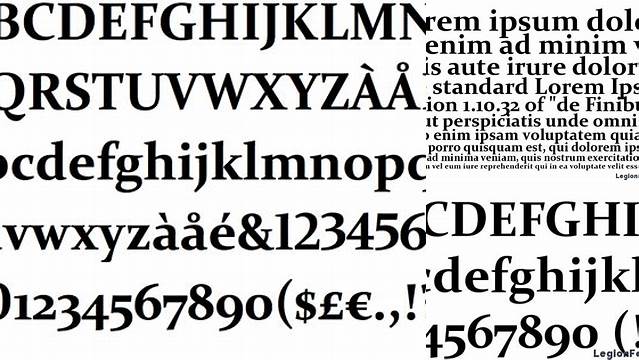
Understanding the Allure of Constantia Bold
Before we jump into the nitty-gritty of downloading and installing, let's take a moment to appreciate what makes Constantia Bold such a sought-after font. This typeface, part of the larger Constantia family designed by John Hudson and released by Microsoft, boasts a classic yet contemporary appeal. Its elegant serifs and bold weight give it a commanding presence, making it ideal for headlines, titles, and branding materials. The legibility of Constantia Bold is also a major plus, ensuring your message is clear and impactful across various media, from print to digital. Whether you're working on a sleek website design, a professional presentation, or a captivating marketing campaign, Constantia Bold can add that touch of sophistication and authority you're looking for. Plus, its versatility means it pairs well with a wide range of other fonts, giving you plenty of creative freedom to experiment and find the perfect typographic harmony for your project. And let's be real, a good font can make or break a design, so choosing wisely is crucial. That’s why Constantia Bold is a favorite among designers and creatives – it's a reliable workhorse that delivers every time. In the following sections, we'll explore where you can find this gem for free and how to get it working seamlessly on your Mac.
Why Constantia Bold is a Designer's Best Friend
Designers, listen up! Constantia Bold isn’t just another font in the sea of typefaces; it’s a reliable companion that brings a touch of elegance and authority to any project. Its carefully crafted serifs and bold weight create a visual impact that grabs attention, making it a go-to choice for headlines and titles. But the magic of Constantia Bold doesn't stop there. Its exceptional legibility ensures that your message is crystal clear, whether it's on a large poster or a small screen. This is crucial because, let’s face it, a beautiful font is useless if people can't read it! Think about it: you could be designing the most stunning website, but if the typography is off, your message gets lost in the visual noise. Constantia Bold helps you avoid that pitfall. Furthermore, its versatility is a major win. It plays well with a variety of other fonts, allowing you to create unique typographic combinations that reflect your brand's personality. Imagine pairing Constantia Bold with a clean, sans-serif font for a modern, professional look, or using it alongside a script font for a touch of classic elegance. The possibilities are endless! And let's not forget about the professional edge it brings to your work. Whether you're designing a sleek brochure, a compelling presentation, or a striking logo, Constantia Bold adds a level of sophistication that elevates your design. It's a font that commands respect and trust, making it perfect for businesses and brands that want to project a confident and reliable image. In short, Constantia Bold is more than just a font; it’s a design asset that can help you communicate effectively and make a lasting impression. So, if you're looking for a typeface that combines beauty, legibility, and versatility, look no further. Constantia Bold is here to save the day!
Utilizing Constantia Bold in Your Design Projects
Okay, you've got Constantia Bold installed and ready to roll. Now, let's talk about how to actually use this fantastic font in your design projects! Constantia Bold is a versatile typeface, but like any design tool, it shines brightest when used thoughtfully.
Best Practices for Font Pairing and Usage
When it comes to font pairing, Constantia Bold plays well with others, but it's essential to strike the right balance. Because Constantia Bold has a strong, authoritative presence with its serifs and bold weight, it often pairs beautifully with cleaner, sans-serif fonts. Think of it like this: Constantia Bold can be the confident headline, while a sans-serif font provides the clear and readable body text. This creates a visual hierarchy that guides the reader's eye and makes your design more engaging. For example, pairing Constantia Bold with a font like Open Sans or Lato can create a modern and professional look. The contrast between the serif and sans-serif styles adds visual interest, while the clean lines of the sans-serif font ensure readability. Alternatively, you could pair Constantia Bold with a lighter serif font for a more classic and elegant feel. Fonts like Georgia or Times New Roman can work well in this scenario, creating a harmonious and timeless aesthetic. But remember, the key is contrast! You want the fonts to complement each other without competing for attention. Avoid pairing Constantia Bold with another overly ornate or decorative font, as this can create a cluttered and overwhelming look. In terms of usage, Constantia Bold is a fantastic choice for headlines, titles, and subheadings. Its bold weight ensures that these elements stand out and grab the reader's attention. It's also a great option for logos and branding materials, as it conveys a sense of confidence and reliability. However, it's generally best to avoid using Constantia Bold for large blocks of body text, as its bold weight can become tiring to read over extended periods. Instead, opt for a lighter weight font or a sans-serif alternative for body text. And finally, always consider the overall tone and message of your design. Constantia Bold has a formal and professional feel, so it's well-suited for projects that require a sense of authority and credibility. But if you're aiming for a more playful or casual vibe, you might want to explore other font options. So, there you have it – some best practices for font pairing and usage. By understanding these principles, you can leverage the power of Constantia Bold to create stunning and effective designs!